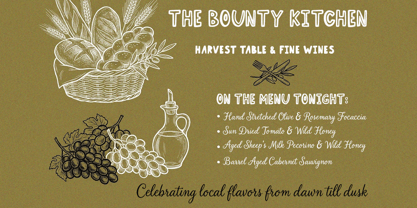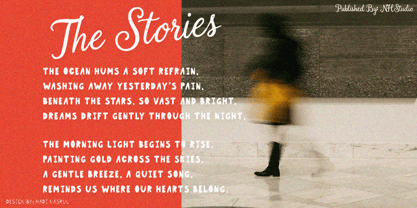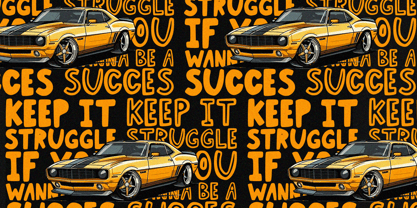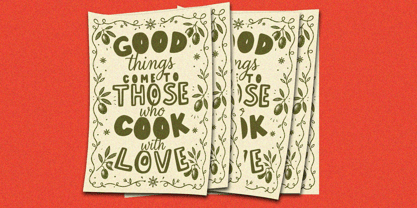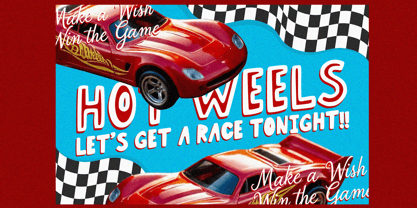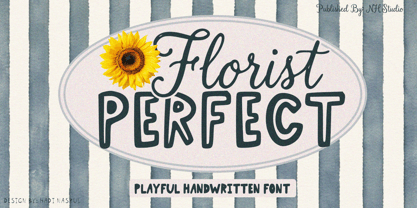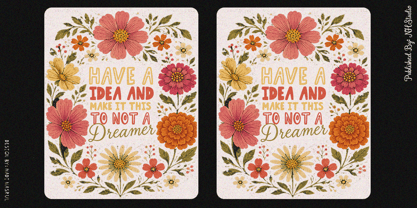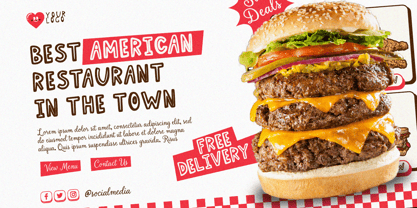
Florist Perfect
Florist Perfect – Playful Handwritten Font
Bring a cheerful, warm, and organic touch to your creative projects with Florist Perfect!
Designed by Hadi Nasrul and published by NH Studio, this typeface beautifully blends a relaxed, playful handwritten vibe with a friendly and stylish character. True to its name, it is the perfect choice for adding a sweet, personalized touch to your designs.
Key Features:
• The Perfect Duo Style: It features a harmonious contrast of two distinct styles that complement each other flawlessly. The word "Florist" showcases an elegant yet casual cursive script, while "PERFECT" brings a bold, chunky, and whimsical uppercase display style.
• Playful & Handmade Aesthetic: The organic, imperfect curves deliver an authentic hand-drawn feel, making your artwork look approachable, warm, and full of personality.
• High Readability: Despite its whimsical and artistic nature, the font maintains excellent legibility, making it perfect for eye-catching headlines, titles, and subheadings.
Best Suited For:
• Branding & Identity: Ideal for flower shops, cozy cafes, bakeries, handmade crafts, and eco-friendly or children’s brands.
• Product Packaging: Excellent for labels, stickers, custom boxes, jars, and product hangtags.
• Social Media & Digital Content: Perfect for Instagram graphics, YouTube thumbnails, blog headers, and digital planners.
• Merchandise & Prints: Great for t-shirts, mugs, tote bags, greeting cards, and event invitations.
Connect with your audience on a personal level and make your designs pop with Florist Perfect!